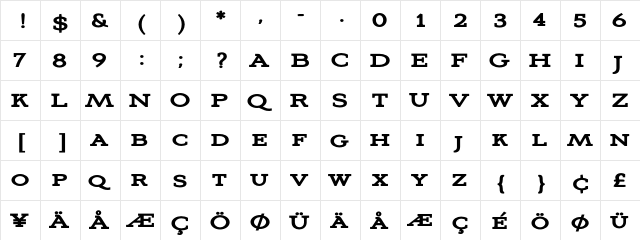
AvianoSlabBold Regular
| Foundry | by Jeremy Dooley |
| Designer | Jeremy Dooley |
Design Context for AvianoSlabBold Typeface
AvianoSlabBold features prominent, blocky serifs that give it a confident, grounded presence — equally at home in editorial settings and bold branding work. The heavy weight commands attention and anchors typographic hierarchies.
Suited to magazines, political campaign materials, bold packaging, and any setting where authority matters.
Pro Tip: Use AvianoSlabBold for headlines and subheadings where its slab serifs can make an impression. It also holds up well in mid-size body copy thanks to its sturdy construction.